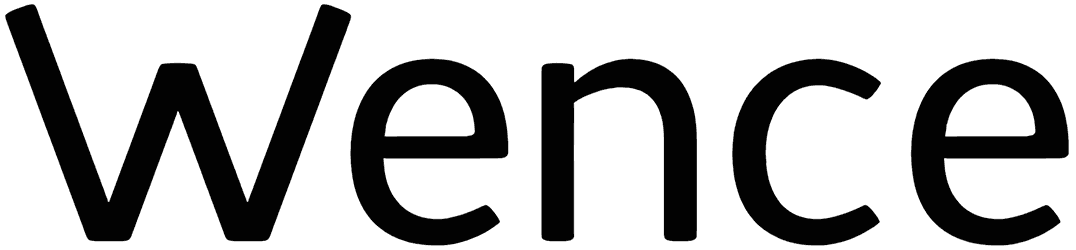
Wence Font
Say hello to a stunning creative sans serif font containing all the letterforms required to make flawless typography. Wence with modern and chic characters qualifies to embed in a few common places like apps, websites, g…
Say hello to a stunning creative sans serif font containing all the letterforms required to make flawless typography. Wence with modern and chic characters qualifies to embed in a few common places like apps, websites, games, branding, and more.